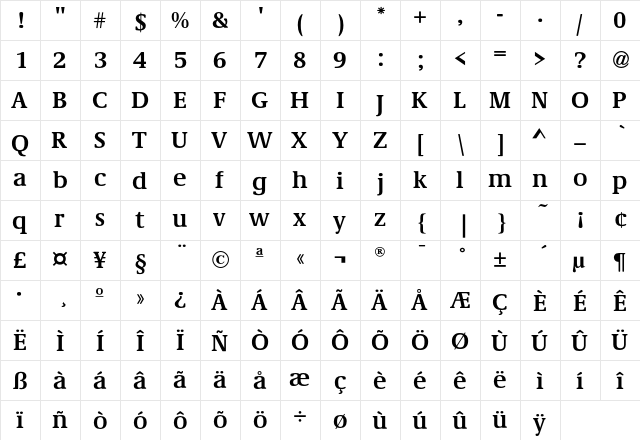
DemosEF SemiBold
Design Context for DemosEF Typeface
DemosEF is a composed and adaptable typeface that performs quietly and consistently across a wide range of design contexts. The heavy weight commands attention and anchors typographic hierarchies.
Pro Tip: Pair DemosEF with a font of contrasting weight or personality to build a more expressive typographic hierarchy.